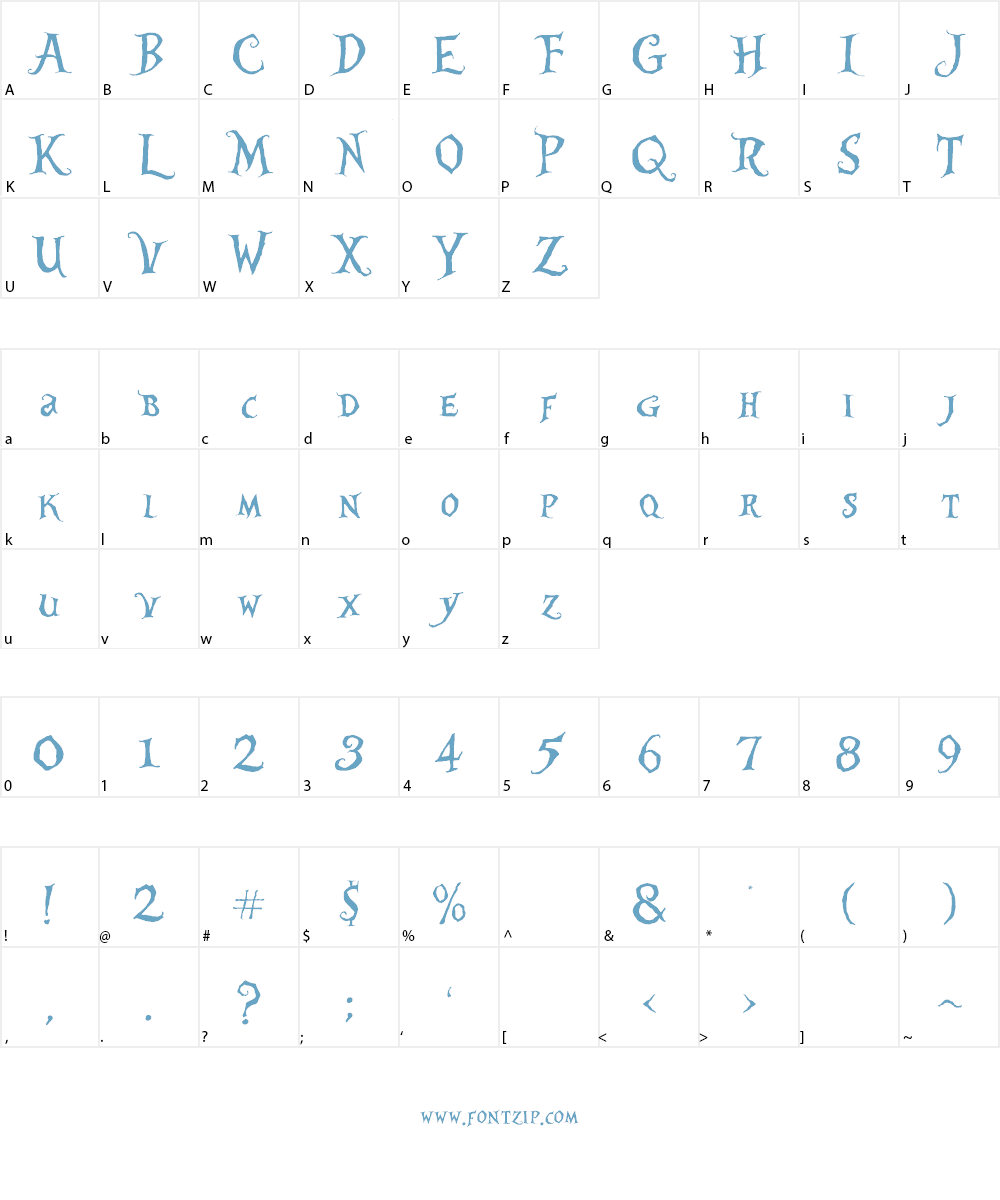
Hi, this font was inspired by Tim Burton's Alice in Wonderland movie logo, this is an old proyect but since I didn't knew how to use any font software I was waiting for me to learn something. Now I've finished the font I like the way it came out and hope you all enjoy it and have fun with it. See you and feel free to ask or comment whatever you want to.
PS: All characters from A-Z/a-z (exepting upper case X and lower case q) are based in official material. Numbers too, exepting 6789. The ¿!()&%$# symbols were created by me since I couldn't find official versions of them.